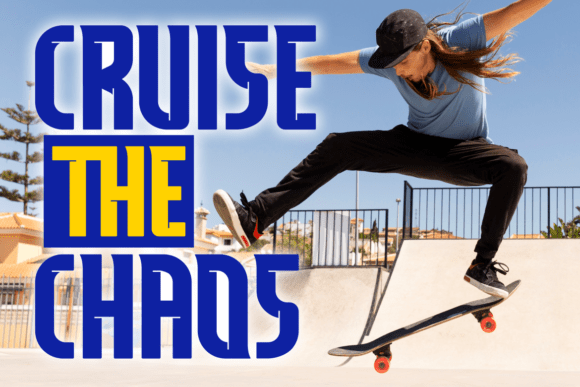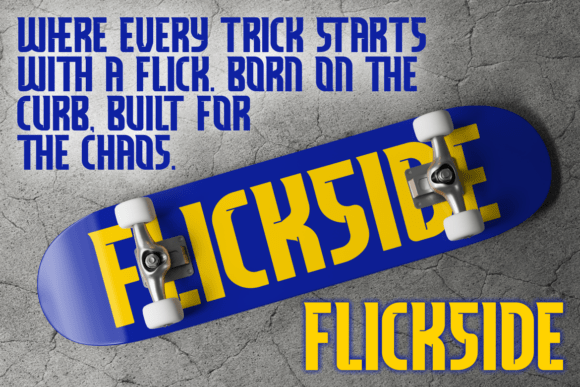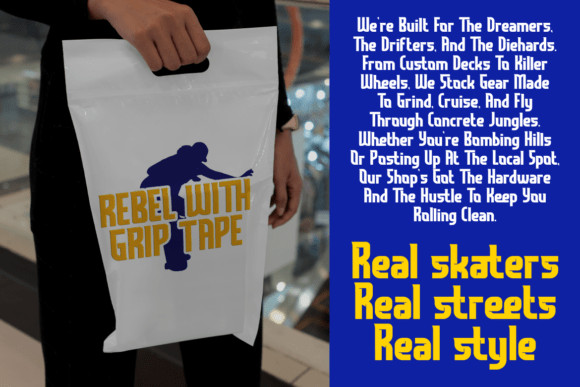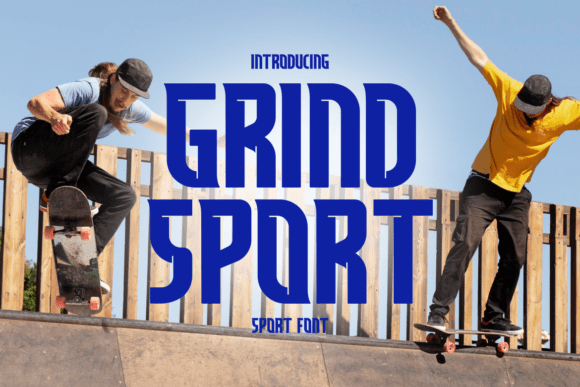
Introduction to Grind Sport Font
Grind Sport is a dynamic and adrenaline-charged display font engineered for movement, energy, and attitude.
This bold typeface commands attention with its condensed letterforms, sharp verticals, and minimal curvesβ€”channeling the raw energy of skateparks, street leagues, and underground sport subcultures Each glyph is meticulously designed to deliver an urban edge while retaining optimal legibility, making it ideal for high-impact visuals.
Key Features of Grind Sport Font
Why Choose Grind Sport Font?